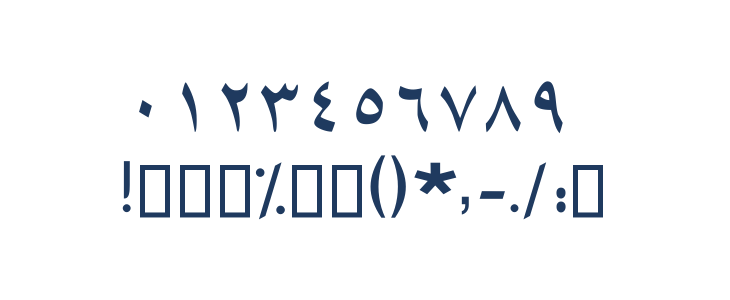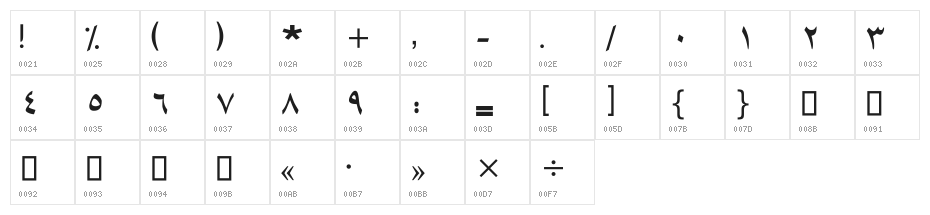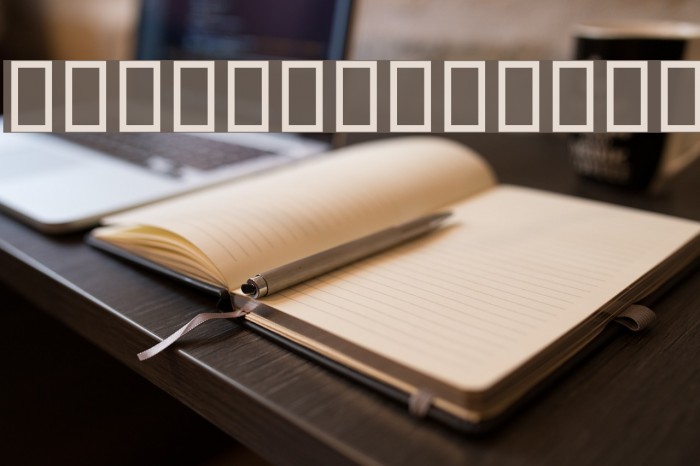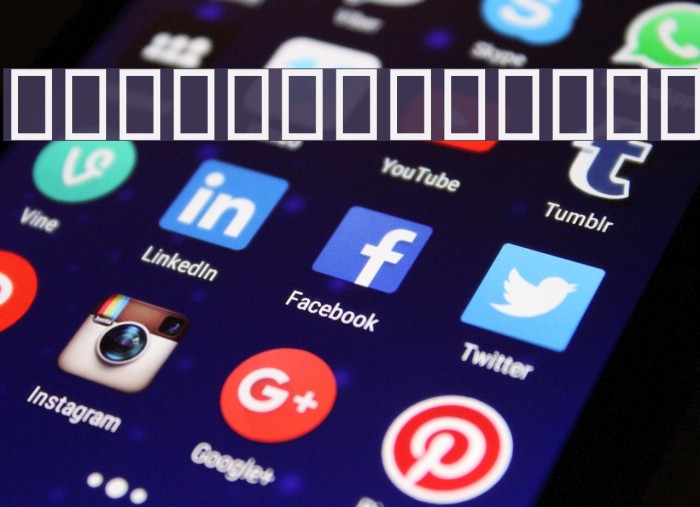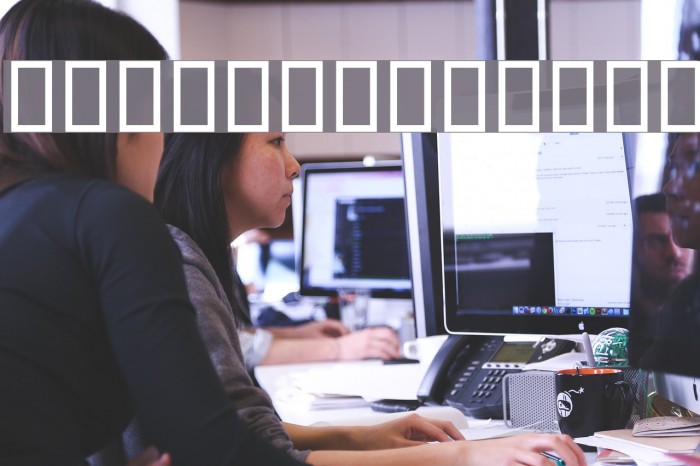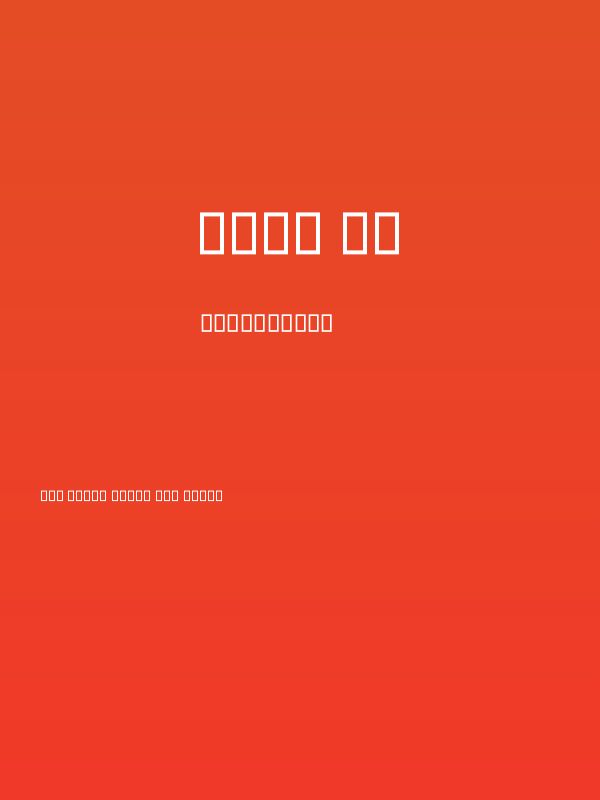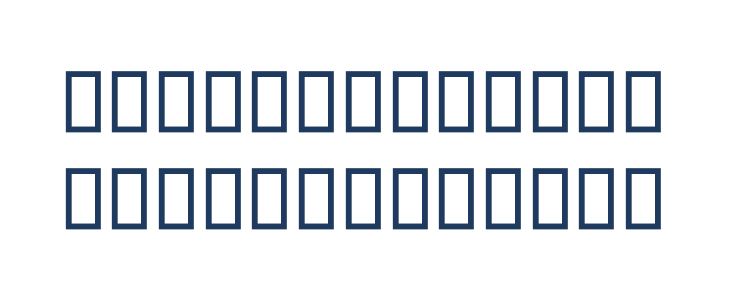
Gerd II Font
Gerd II Description
This font features a unique and artistic design with a modern twist. The characters exhibit a playful and dynamic style, with each letter and number having a distinct flair. The strokes are bold and slightly curved, giving the font a lively and energetic appearance. The special characters maintain the same whimsical style, ensuring consistency throughout the typeface. This font is ideal for creative projects that require a touch of personality and flair.
| Use Case | Logos, Posters, Creative Branding |
| Proposed Projects | Perfect for creative branding, posters, and artistic projects that need a unique and lively touch. |